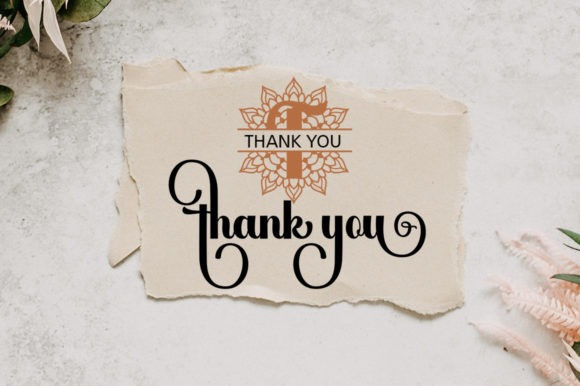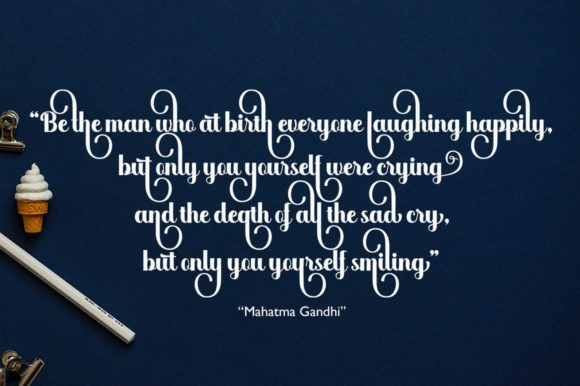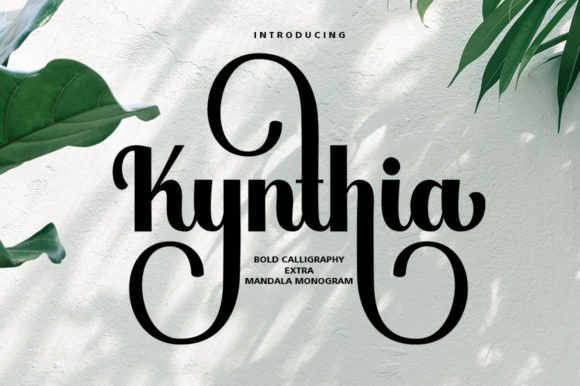
Kynthia Font
Kynthia Font is a stylish and bold looking handwritten font. It is PUA encoded which means you can access all of the glyphs and swashes with ease!